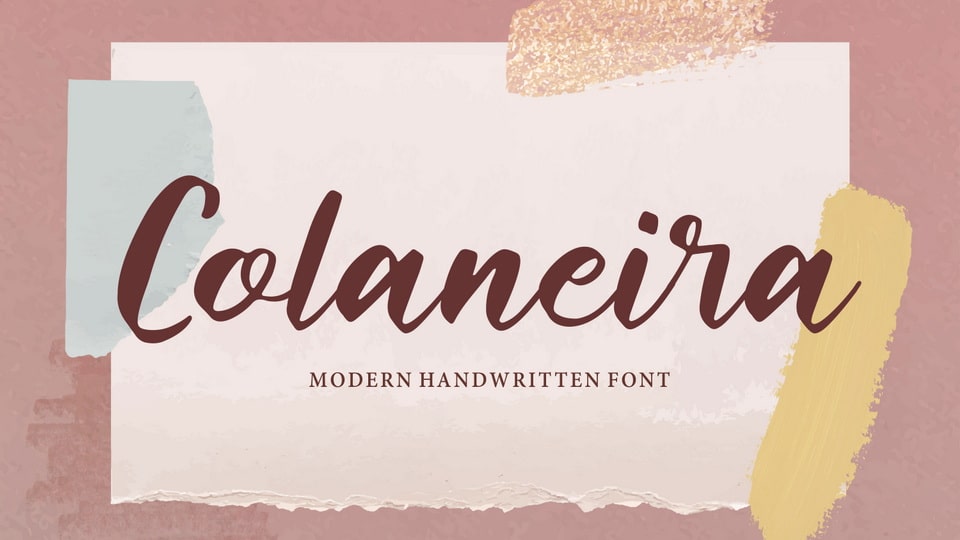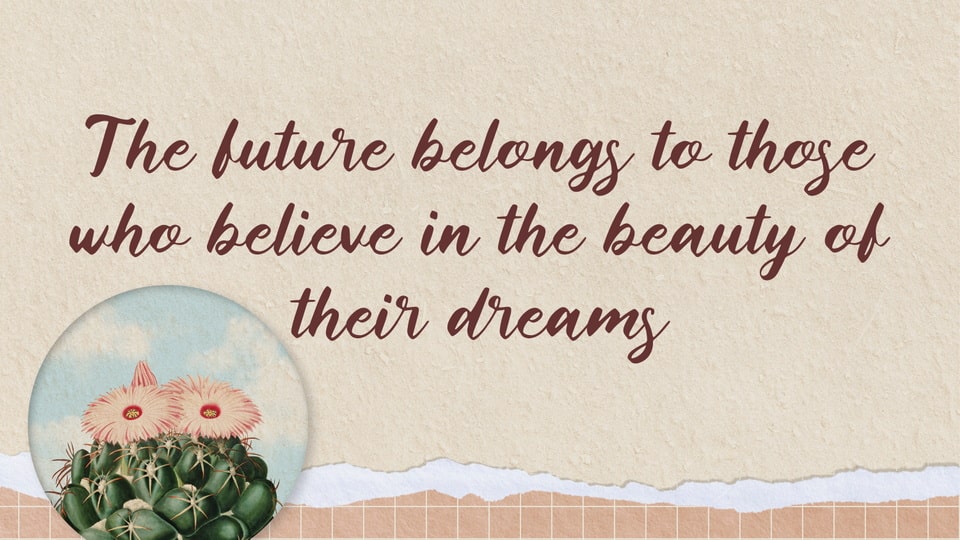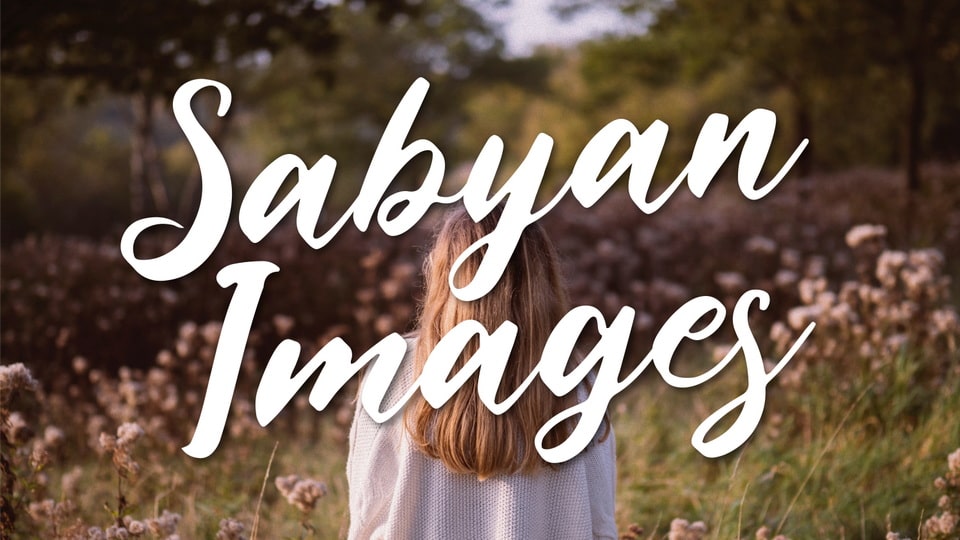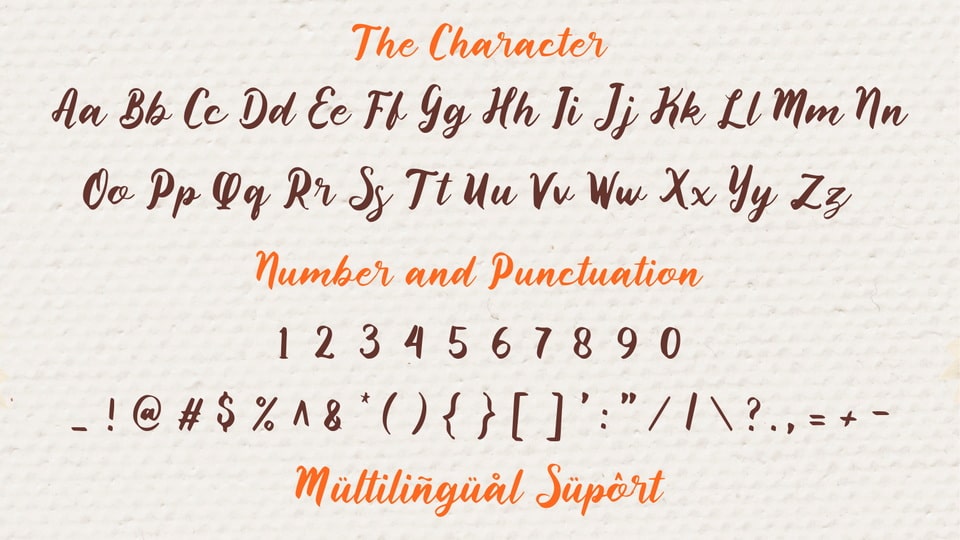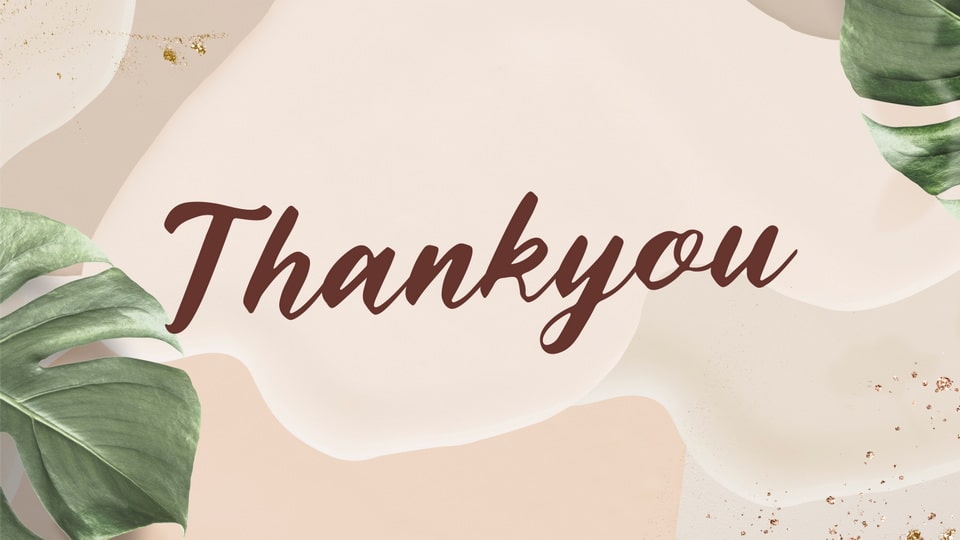
Colaneira Font
Colaneira is a script font inspired by modern and handwritten characters. It is especially designed for simple, casual, kids projects.
Colaneira font is perfect for creating modern and chic designs such as logos, packaging, editorials and more.